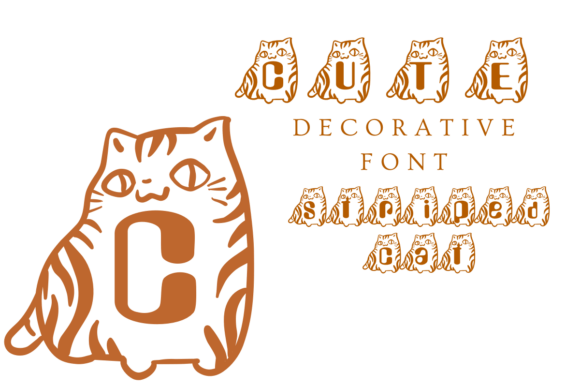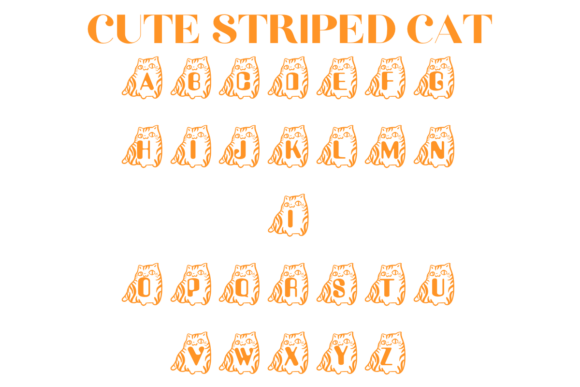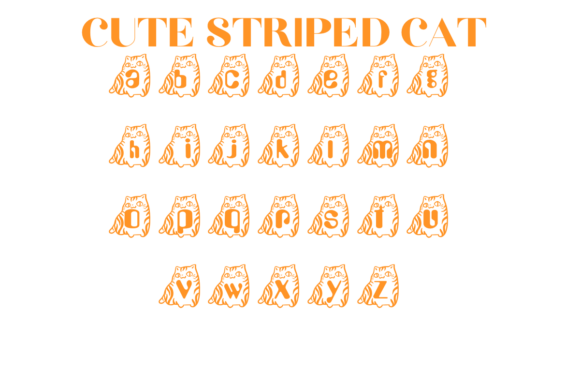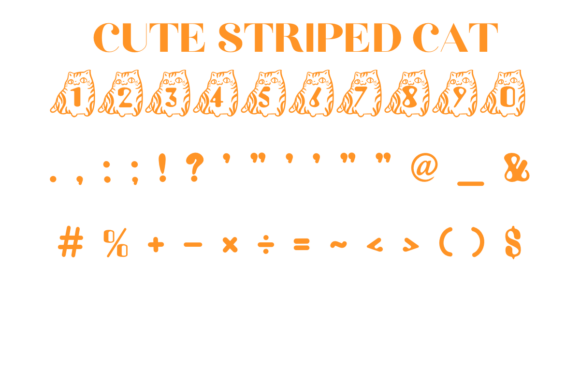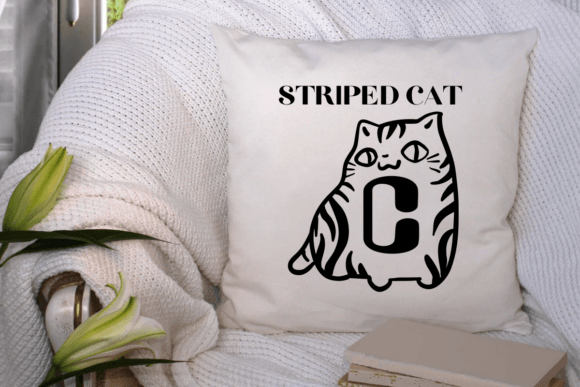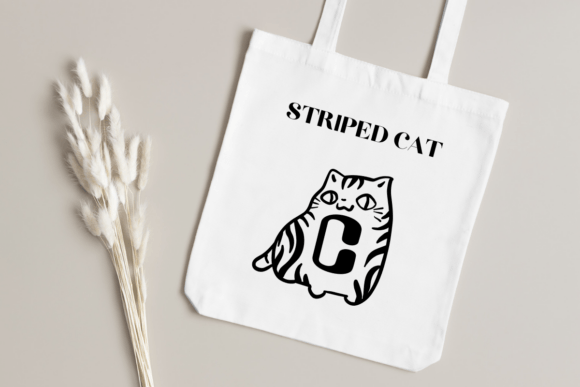
The Purrfect Font: A Deep Dive into Cute Striped Cat
I’ll never forget the moment I stumbled upon the Cute Striped Cat font while working on a project for a client who wanted a playful, whimsical touch. I had been searching for the perfect font for hours, but nothing seemed quite right. That was until I saw the adorable striped cat illustrations that make up this charming font. It was love at first sight! 💕
As a designer, I’m always on the lookout for unique and versatile fonts that can elevate my projects. And, let me tell you, Cute Striped Cat delivers. In this article, we’ll explore what makes this font so special, its uses, and some practical tips on how to get the most out of it.
• ✨ The adorable striped cat illustrations that make up the font are perfect for projects that need a playful touch.
• ✅ The font is surprisingly versatile and can be used for a wide range of projects, from notes and diaries to banners and social media posts.
• 🎉 The font’s decorative style adds a touch of personality to any project.
While Cute Striped Cat is an amazing font, there are a few things to keep in mind:
• ⚠️ The font’s decorative style may not be suitable for projects that require a more formal or professional tone.
• 🤔 Some of the characters may be a bit tricky to read, especially for those with vision impairments.
The story behind Cute Striped Cat is one of passion and creativity. The font’s designer, inspired by their own love of cats, set out to create a font that would bring a smile to people’s faces. With Cute Striped Cat, they aimed to create a font that would be both playful and versatile, perfect for a wide range of projects.
Q: What type of projects is Cute Striped Cat best suited for? A: Cute Striped Cat is perfect for projects that need a playful, whimsical touch, such as notes, diaries, greeting cards, banners, and social media posts.
Q: Is Cute Striped Cat easy to read? A: While Cute Striped Cat is a decorative font, some characters may be a bit tricky to read, especially for those with vision impairments.